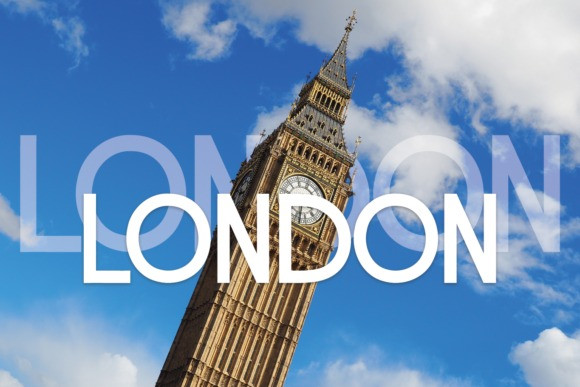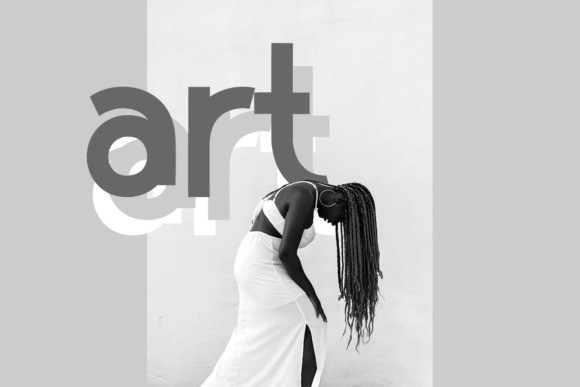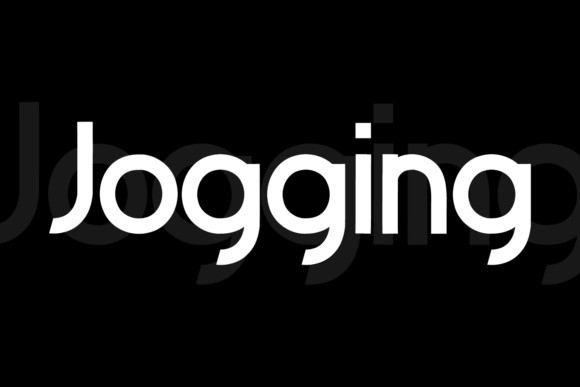
Jogging Font
Jogging Font is a minimal and neat sans serif font. It can easily be matched to a large set of projects, so add it to your creative ideas and notice how it makes them stand out!